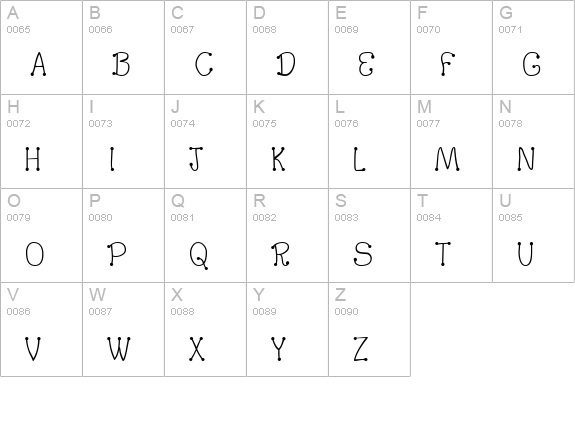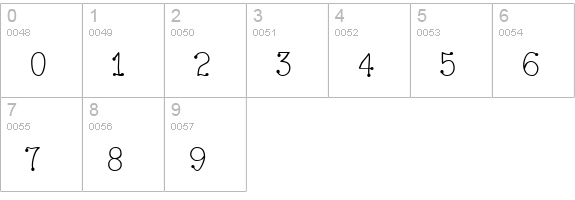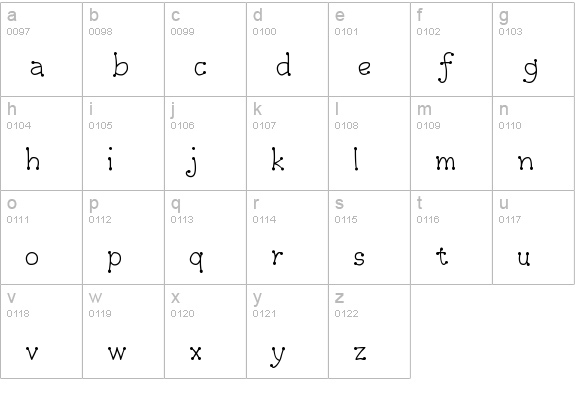
ArgentabObbed Font Details
ArgentabObbed is a modern and stylish font that exudes sophistication and elegance. With its sleek lines and unique design, this font is perfect for creating eye-catching designs for various projects. Whether you are working on a branding project, poster design, or website layout, ArgentabObbed will add a touch of class and professionalism. The best part is that ArgentabObbed is available for free download at FontsMarket.com. This means you can easily access this beautiful font and use it in your projects without any cost. Don't miss out on the opportunity to enhance your designs with the timeless appeal of ArgentabObbed. Download it today and elevate your creative work to the next level.